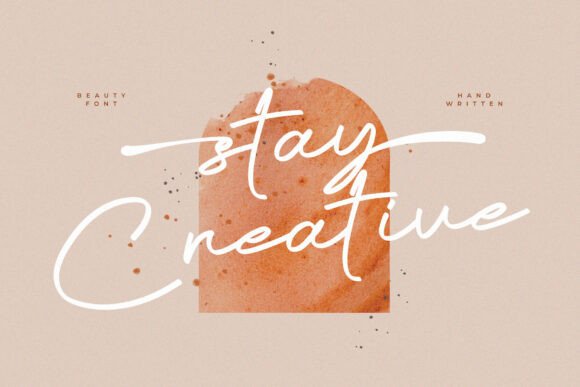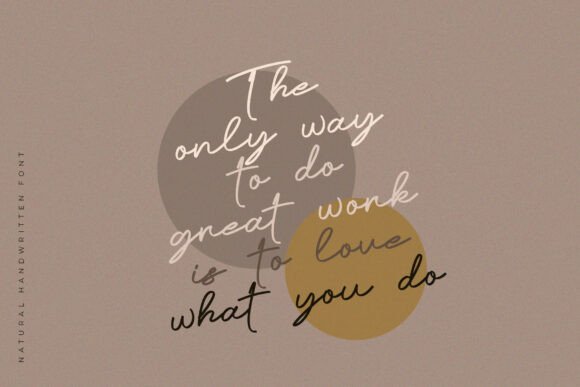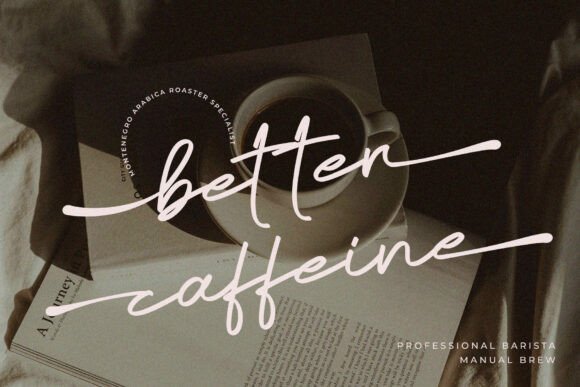
Introduction to Remonila Font
Have you ever stared at a blank page, trying to bring a creative project to life, but the perfect font just seems elusive? That’s where the Remonila Font comes in – a beautiful, elegant, and stylish handwritten script designed to elevate your designs to the next level.
As a designer, you know the importance of choosing the right font to convey your message and evoke the desired emotions. With the Remonila Font, you’ll have a versatile and high-quality design resource at your fingertips, complete with a full set of lowercase and uppercase letters, multilingual support, numerals, and punctuation. Whether you’re working on a personal project or a commercial design, this font is sure to impress.
Key Features of Remonila Font
- High-quality font designed for creative projects, perfect for adding a touch of elegance to your designs.
- Features a unique and stylish design, ideal for use in logos, branding, and other creative applications.
Honest Review: Remonila Font
I recently stumbled upon the Remonila Font while searching for a high-quality design resource for a creative project. I must say, I was impressed with what I found.
What works well: ✨ The Remonila Font has a unique, hand-drawn feel that sets it apart from other fonts. The transparent background makes it easy to use on both light and dark backgrounds. The font also comes in a range of weights, making it perfect for creating visually appealing headings and body text.
Features include:
- High-quality, professional design
- Unique, hand-drawn feel
- Transparent background for easy use
- Range of weights for versatility
What could be improved: ⚠️ The Remonila Font may not be suitable for all design projects, as it has a more whimsical feel that may not be fitting for corporate or formal designs.
Overall impression: I was pleasantly surprised by the Remonila Font and would recommend it to designers looking for a high-quality, creative font for their next project.
Tips for Getting the Most Out of Remonila Font
Use the Remonila Font on a transparent background to create a clean and modern design. Experiment with different font sizes and styles to add visual interest to your creative project. The Remonila Font is a versatile design resource that can be used in a variety of applications.
The Remonila Font is commonly used in creative projects such as logos, business cards, and brochures. Its high-quality design makes it an ideal choice for presentations, reports, and other professional documents. The Remonila Font is a valuable design resource that can help you create stunning designs.